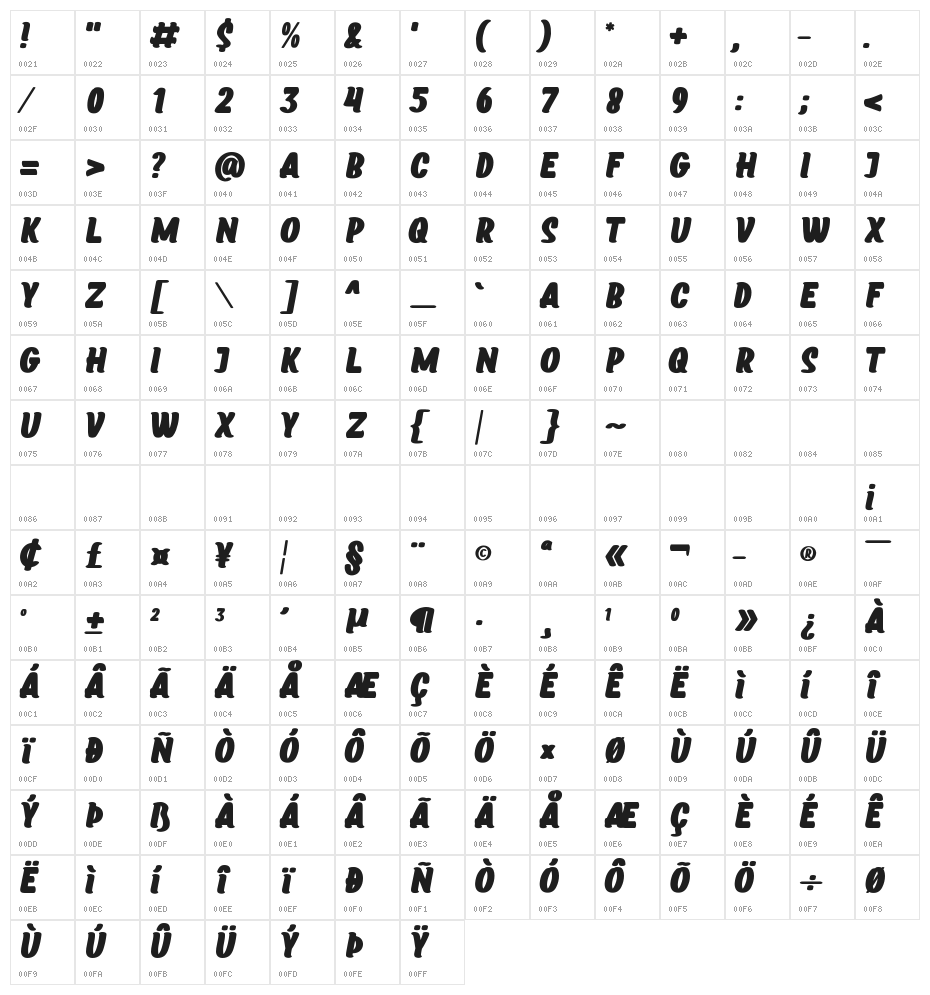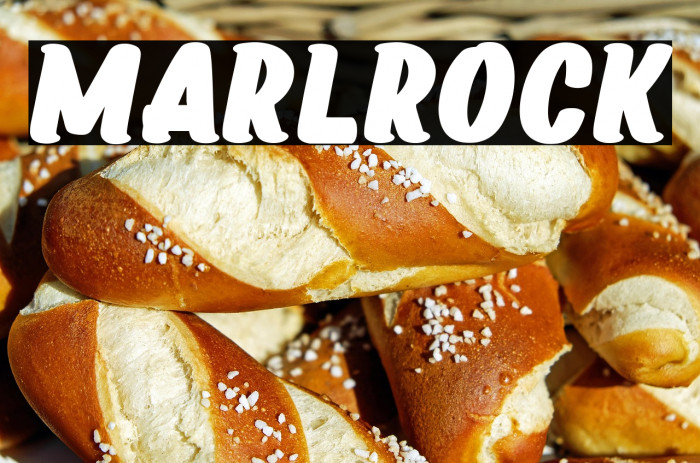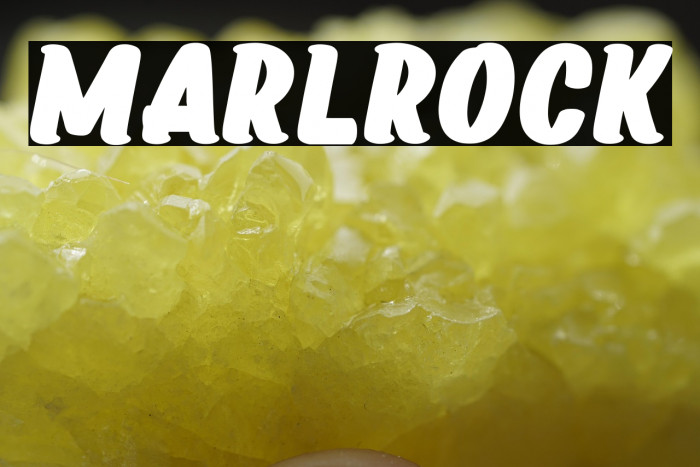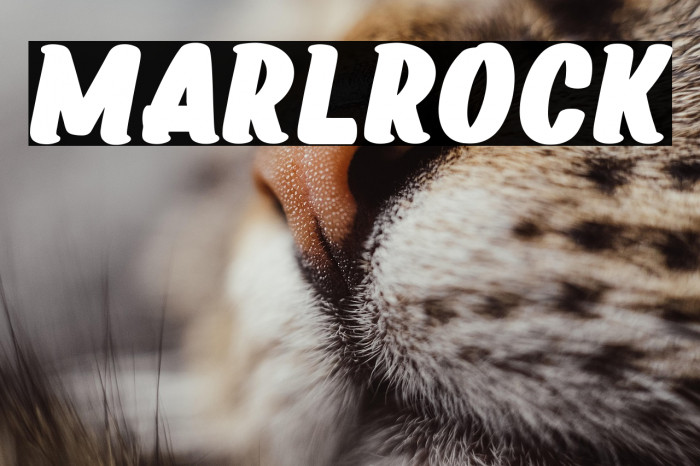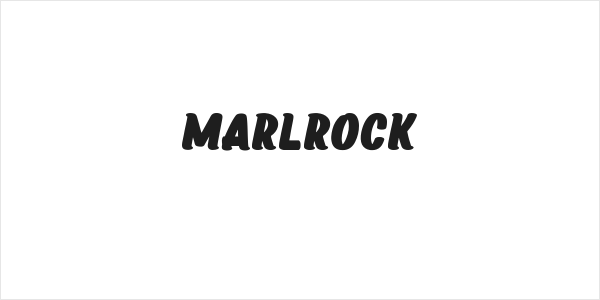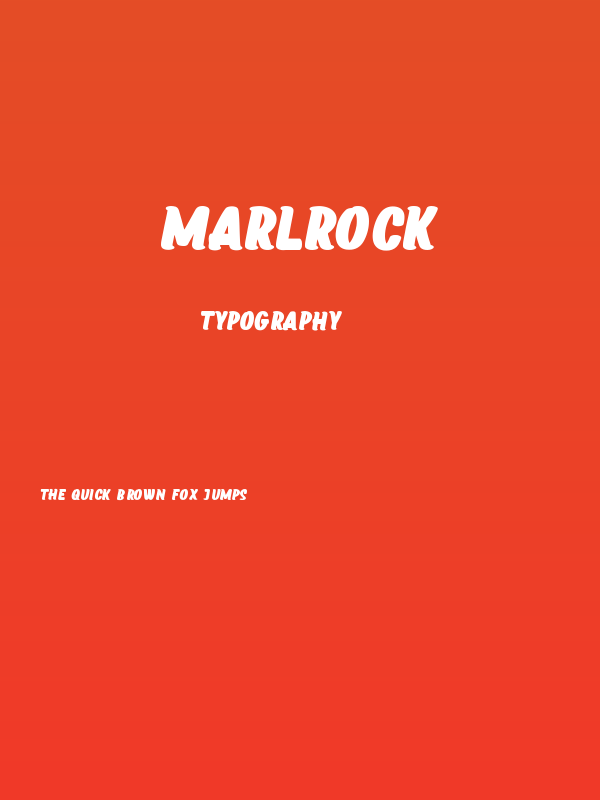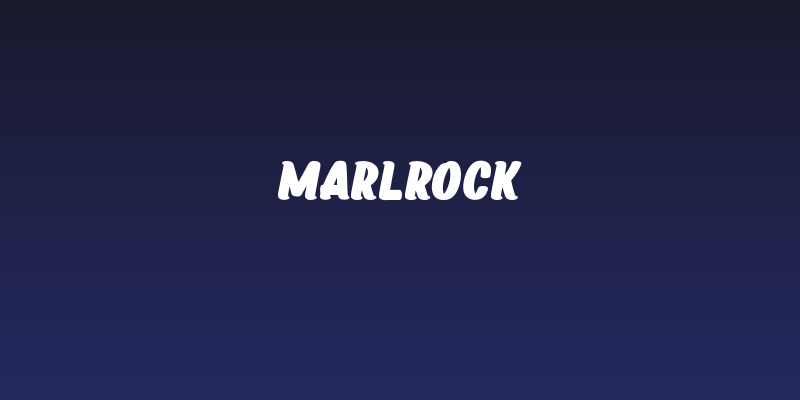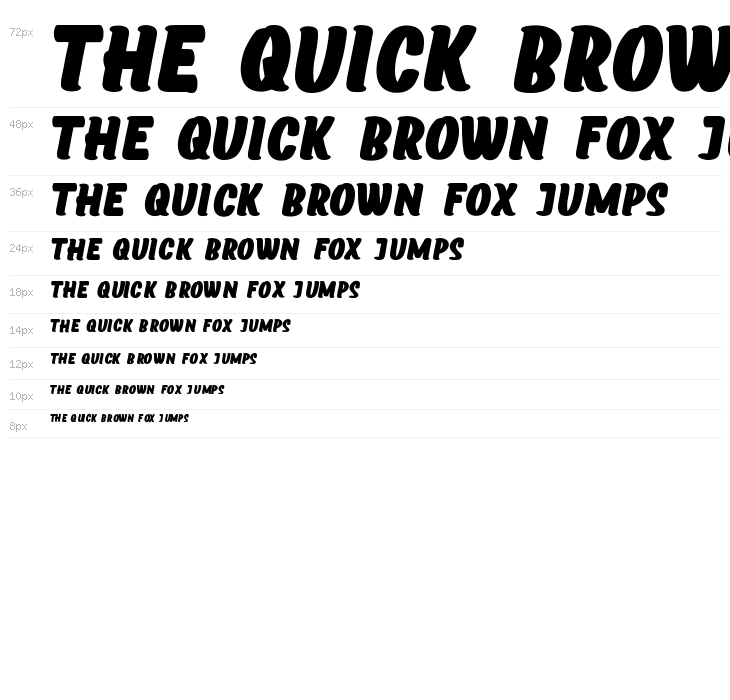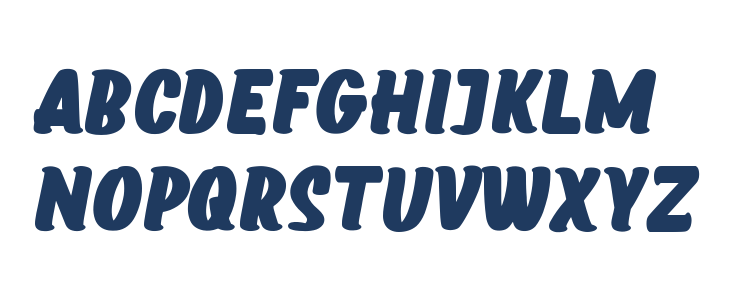
Marlrock Font
Marlrock Description
This font features bold, rounded characters with a playful and energetic style. The letters are thick and slightly slanted, giving them a dynamic appearance. The strokes are consistent in width, creating a uniform look across all characters. The font includes both uppercase and lowercase letters, numbers, and a variety of special characters. Its boldness and rounded edges make it suitable for attention-grabbing designs.
| Proposed Projects | Ideal for posters, logos, branding, and headlines where a bold and energetic style is desired. |